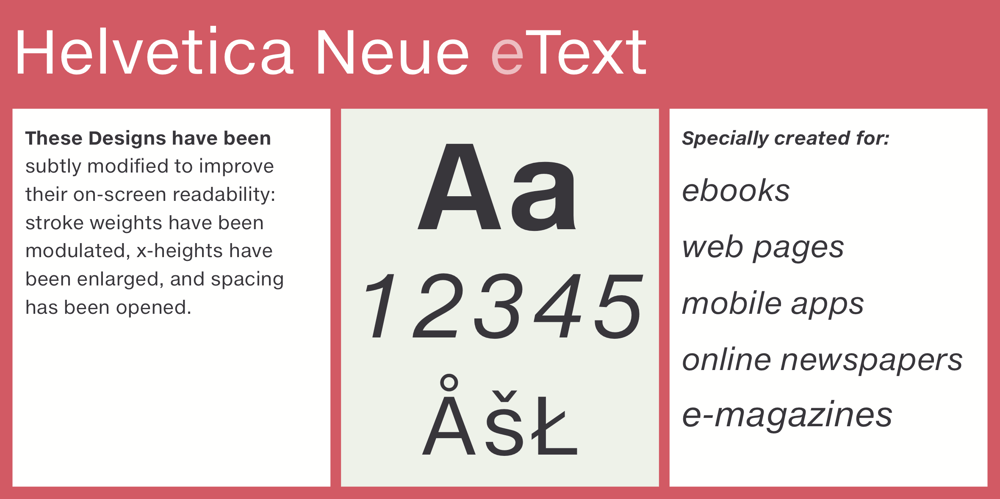
Neue Helvetica eText Font Family was designed by Akira Kobayashi, Max Miedinger, Linotype Design Studio and published by Linotype. Neue Helvetica eText contains 8 styles and family package options. A clear and enjoyable reading experience hinges on the legibility of text copy, especially when reading on screen. This is why Monotype has developed the eText collection of fonts specifically tailored for the text-heavy display environments of e-readers, tablets, mobile devices, and the Web.